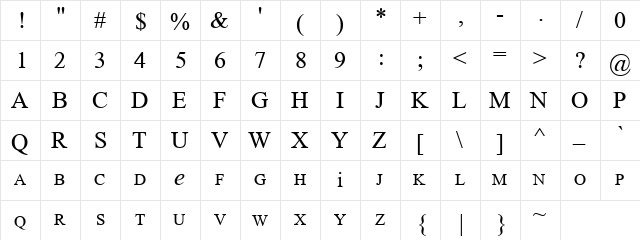
CK Chemistry Regular
Design Context for CK Chemistry Typeface
CK Chemistry offers clean, dependable letterforms without strong stylistic allegiance, making it a practical choice for designers who need flexibility.
Pro Tip: Use CK Chemistry in both headline and body roles to test its range before committing to a single application.